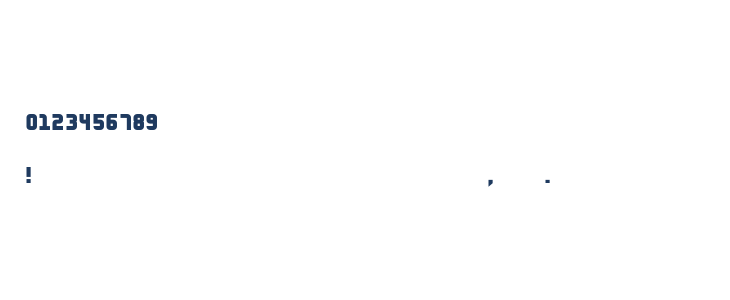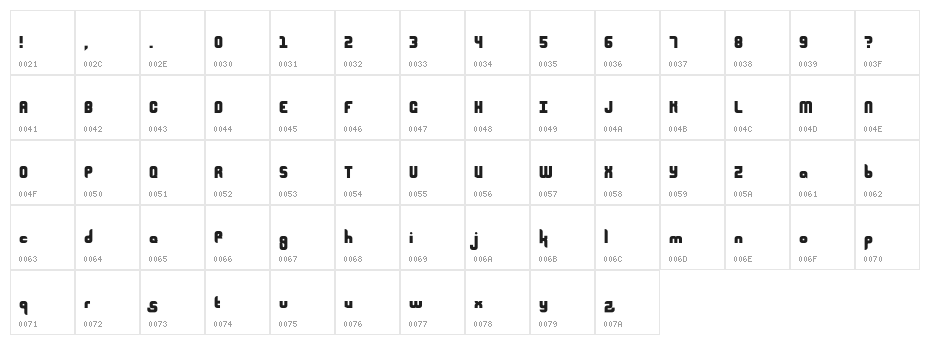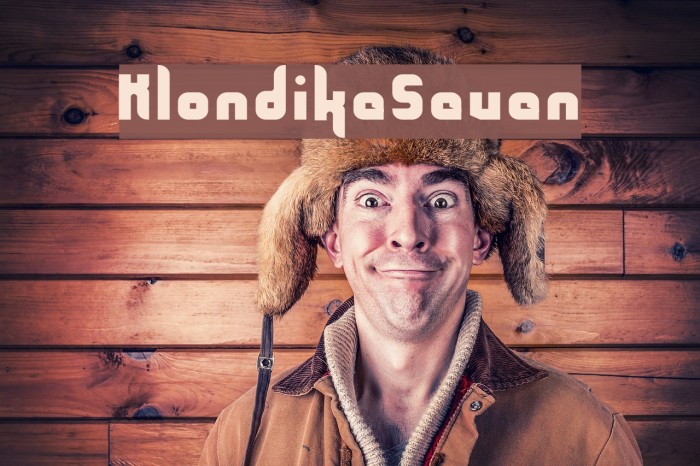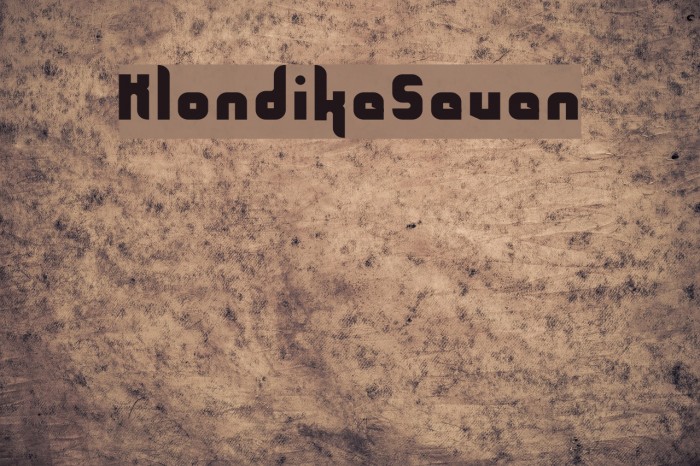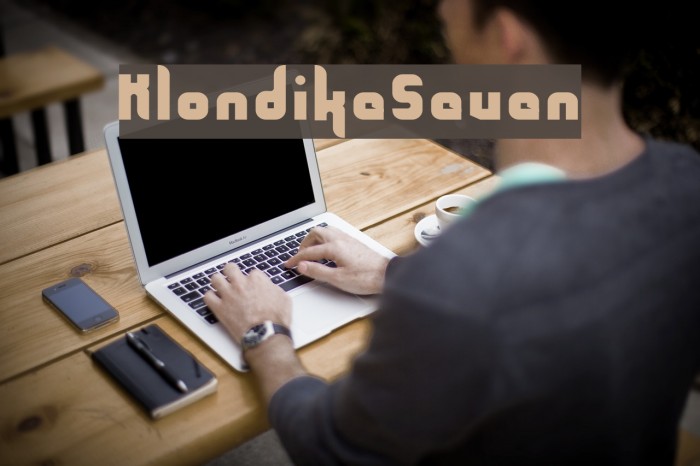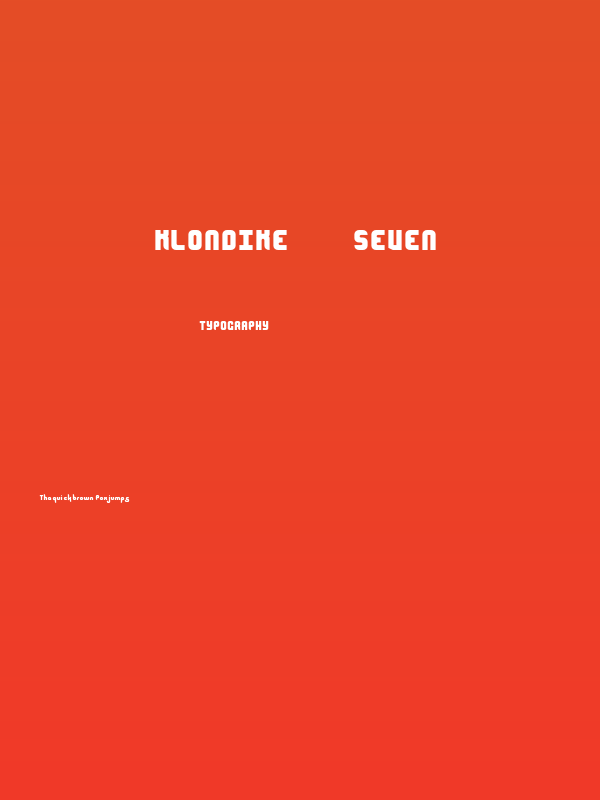
Klondike-Seven Font
Klondike-Seven Description
This font features a bold and geometric design with a strong presence. The characters are blocky and robust, with rounded edges that soften the overall appearance. The uppercase letters are uniform in height, giving a consistent and structured look. The lowercase letters maintain the same boldness, with unique shapes that add a playful touch. Numbers are equally bold, ensuring readability and impact. The special characters are designed to match the overall style, making them cohesive with the rest of the font.